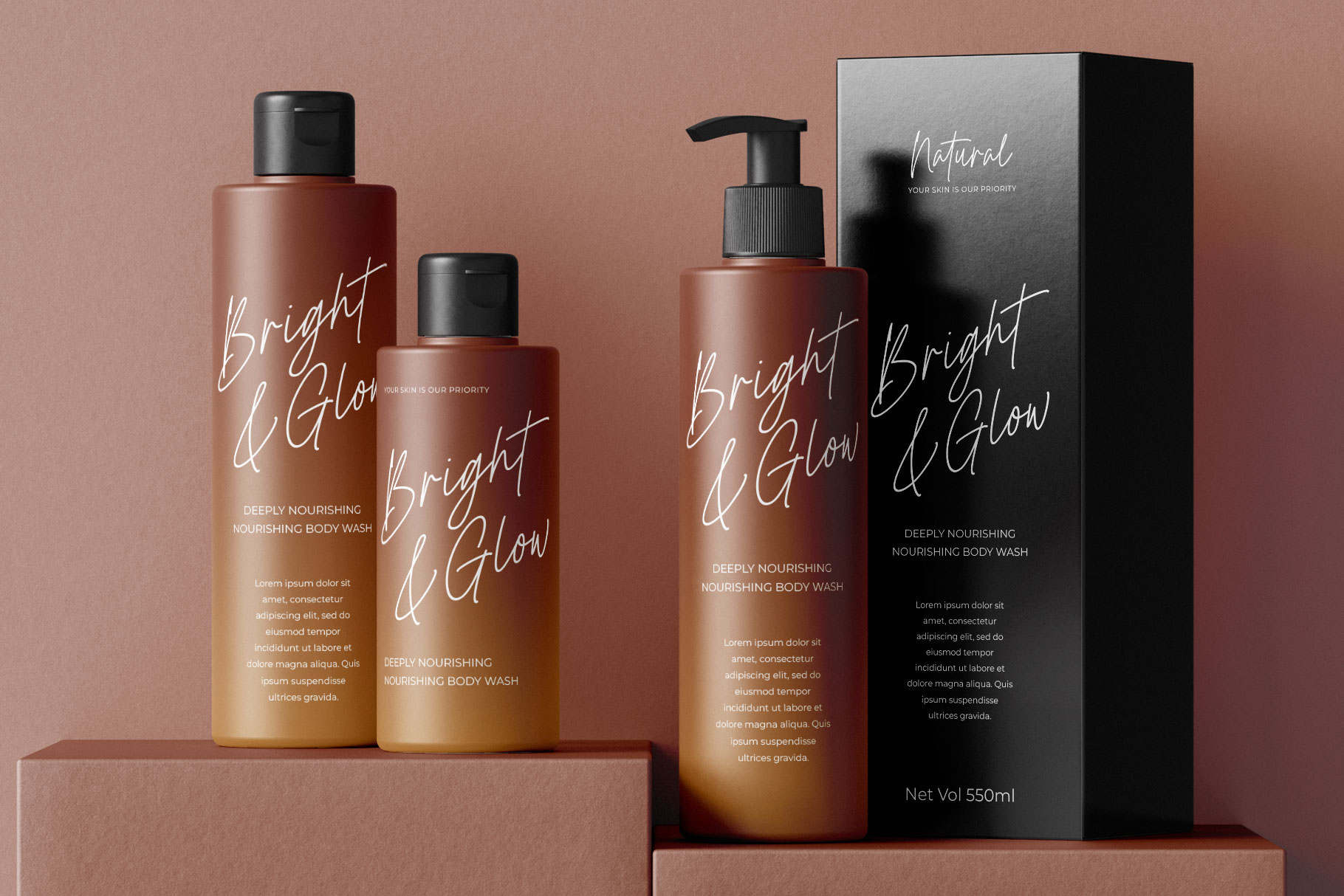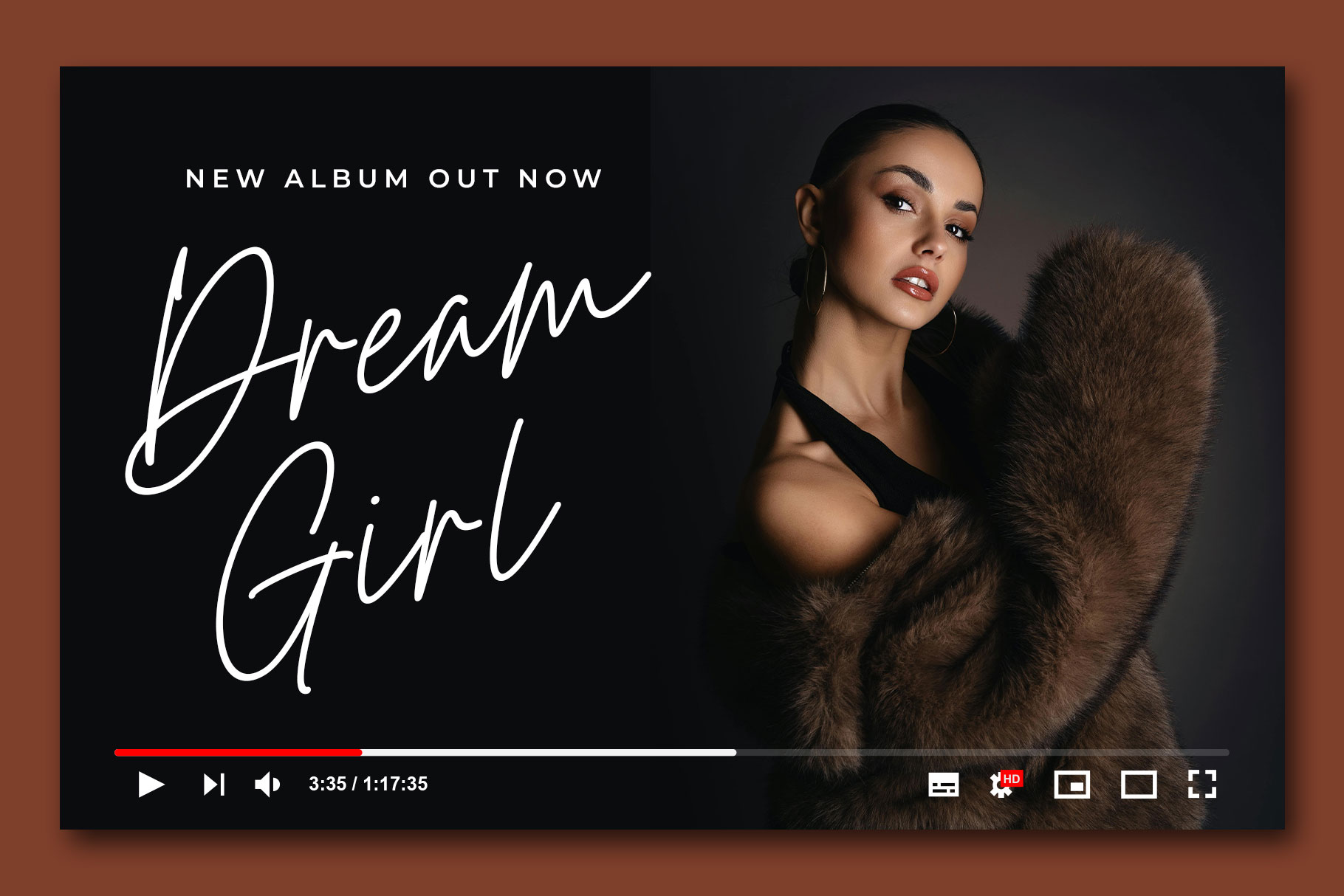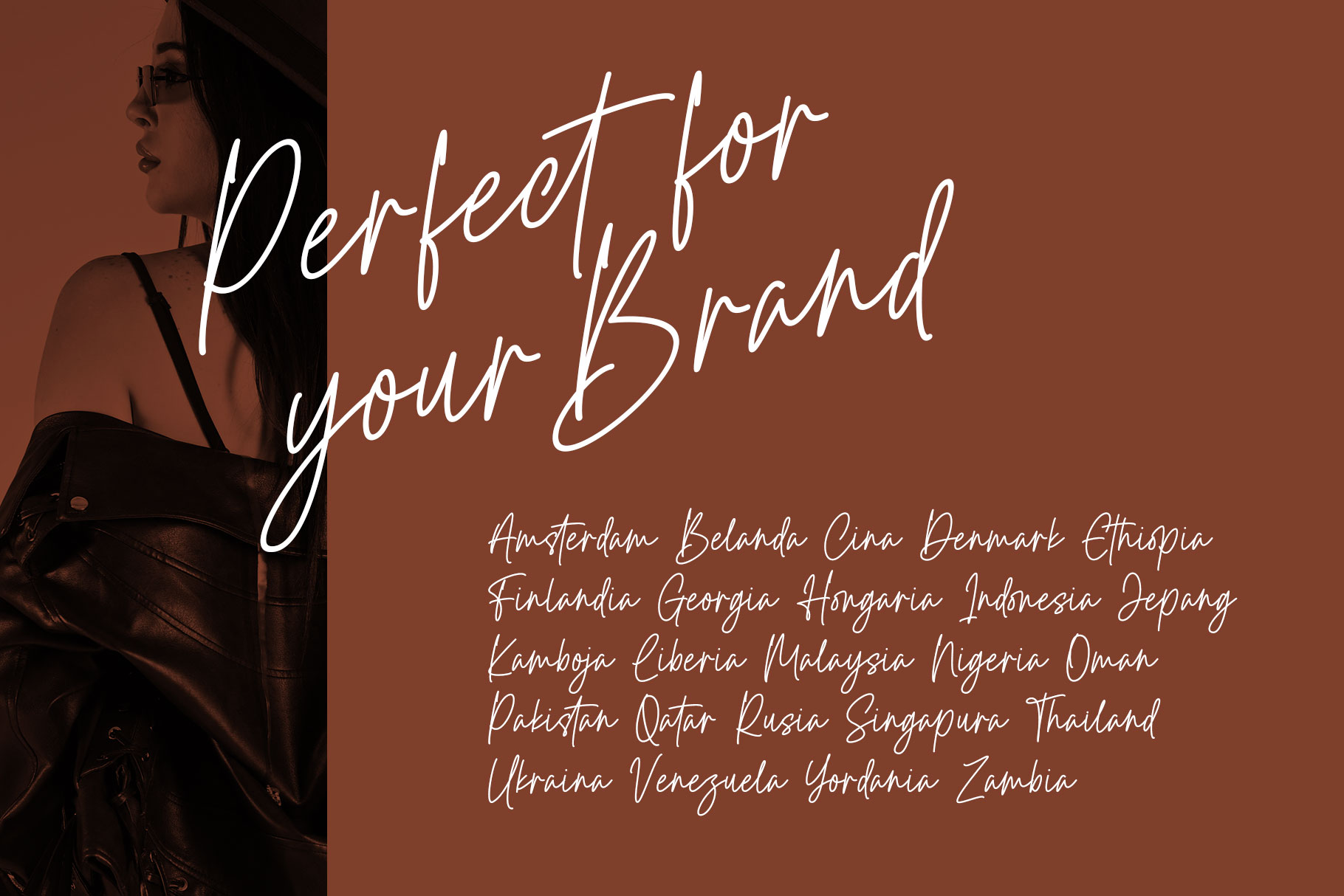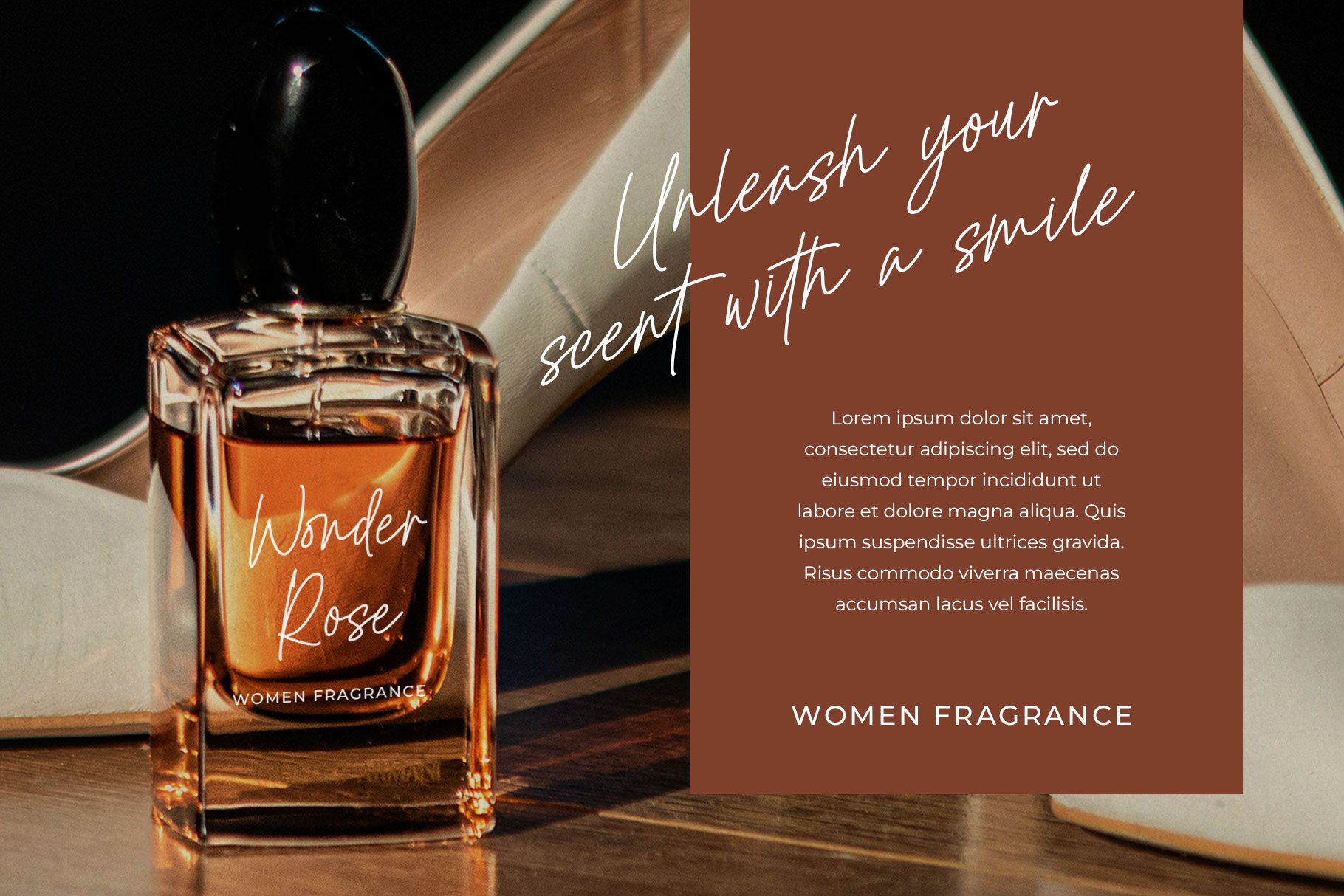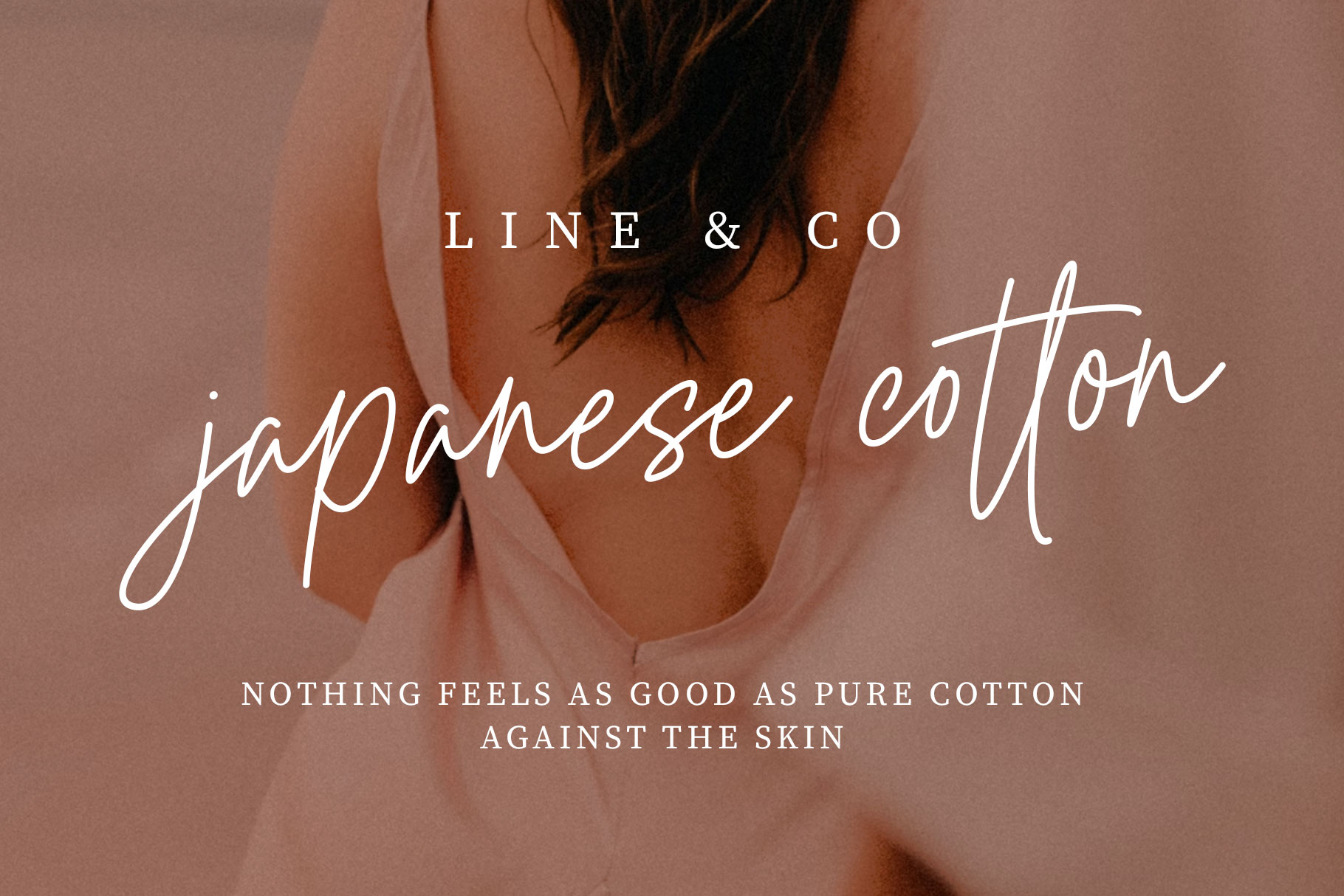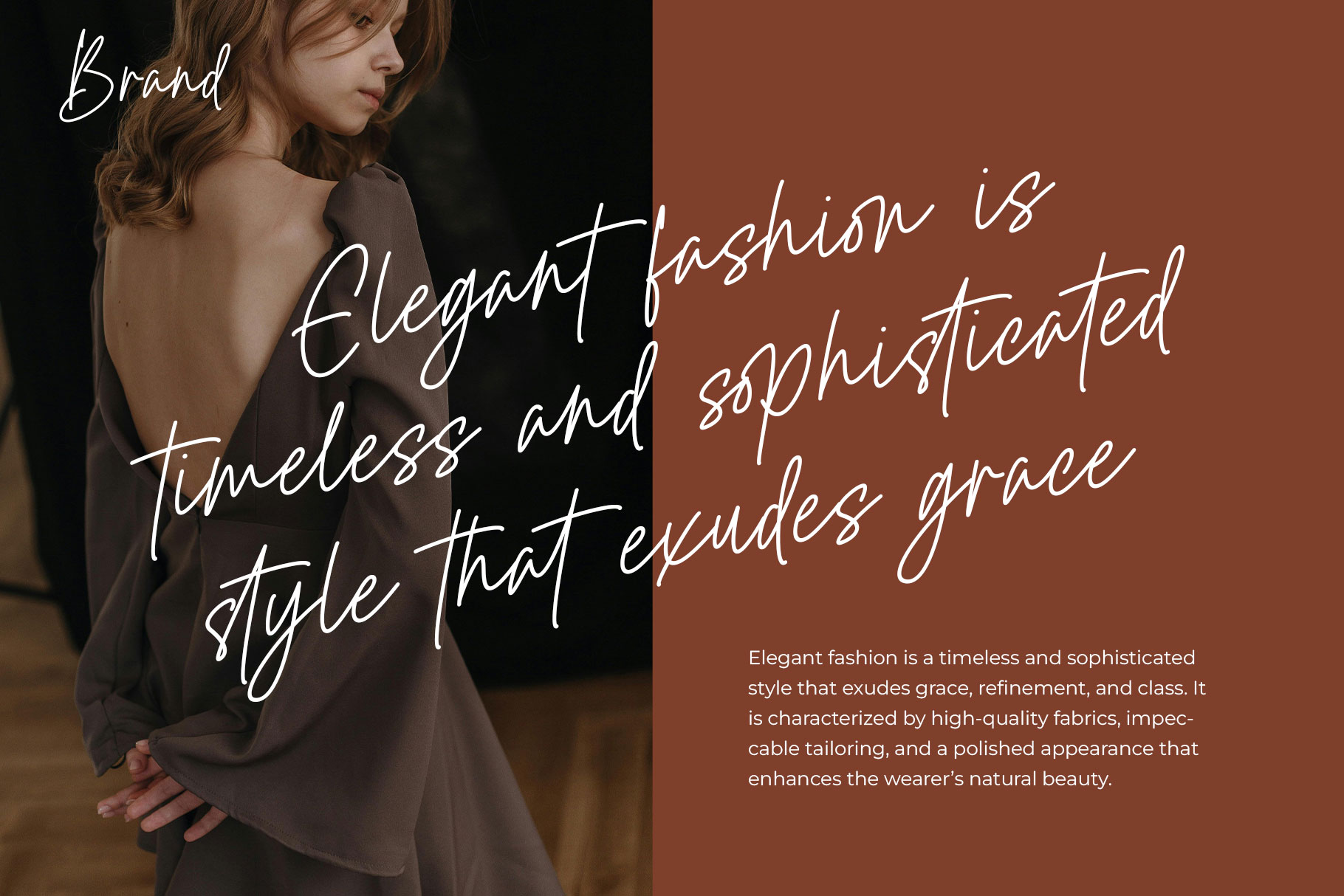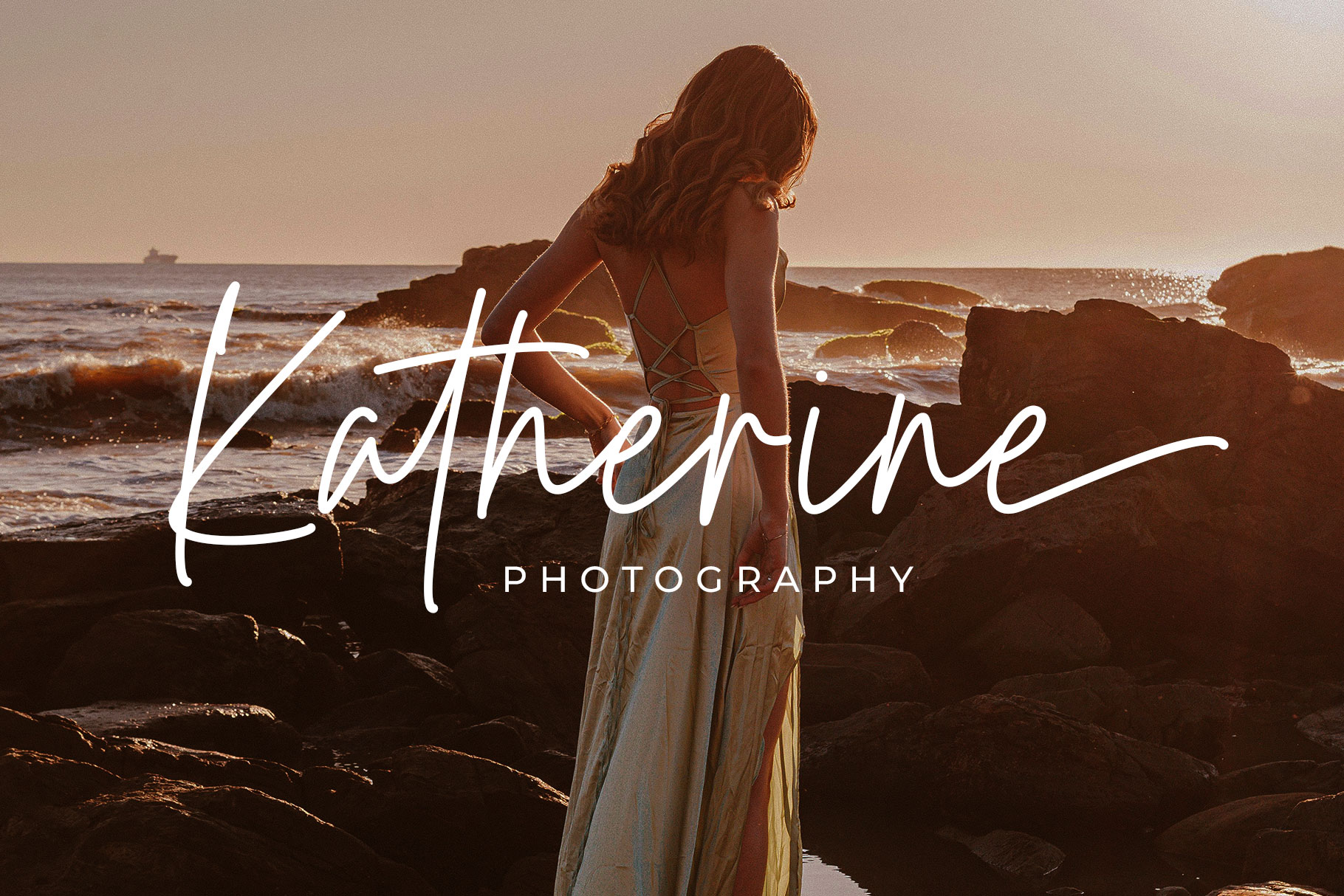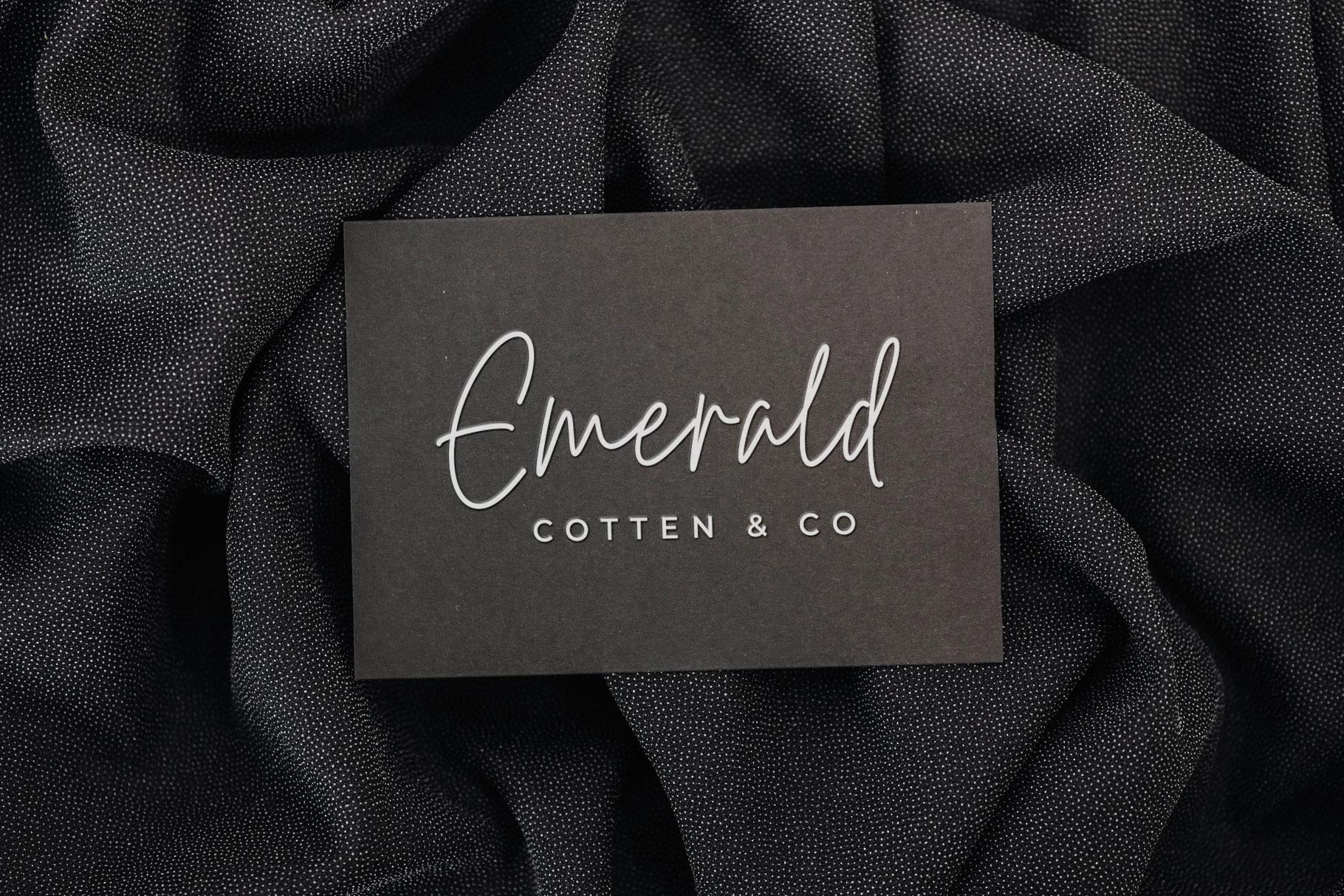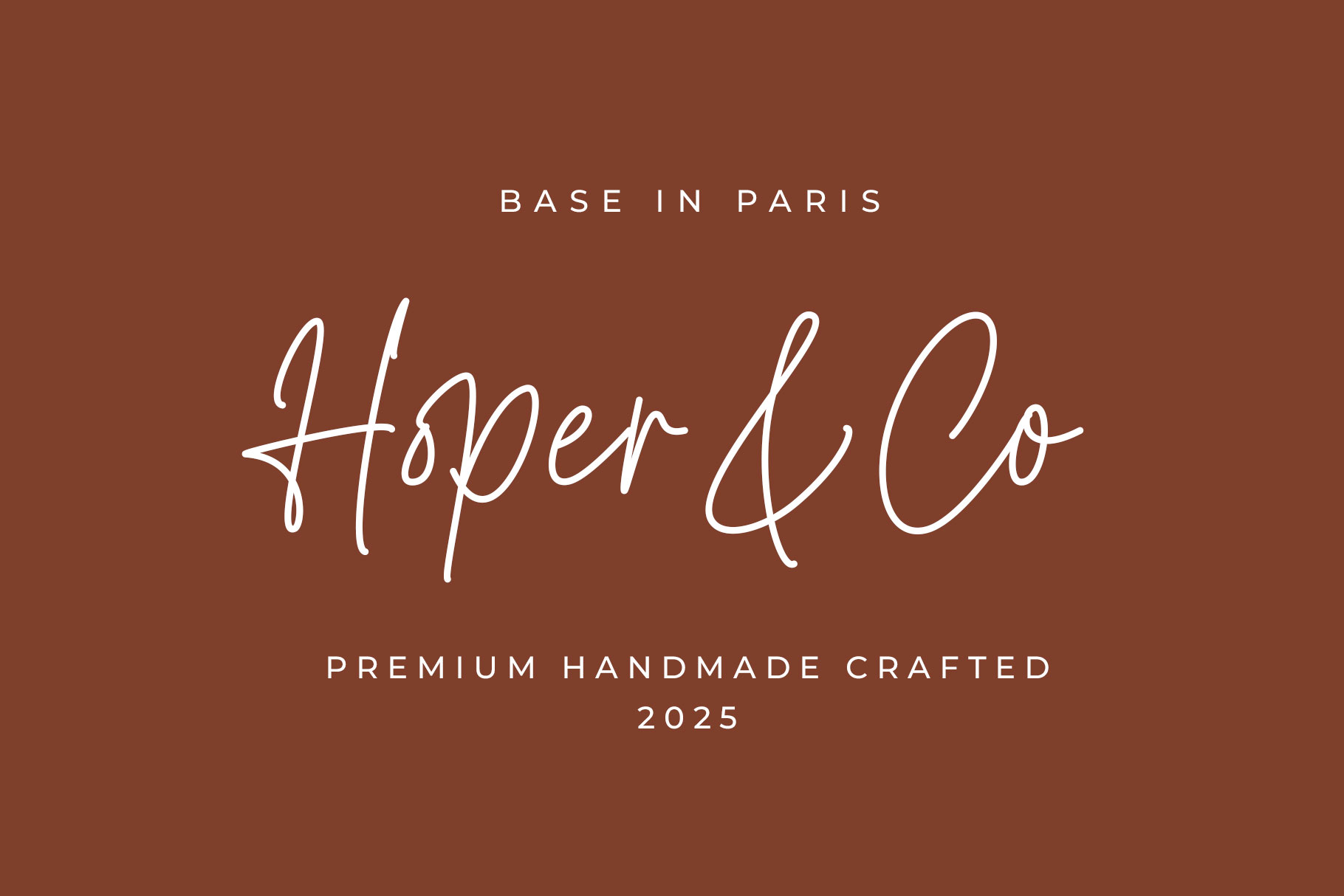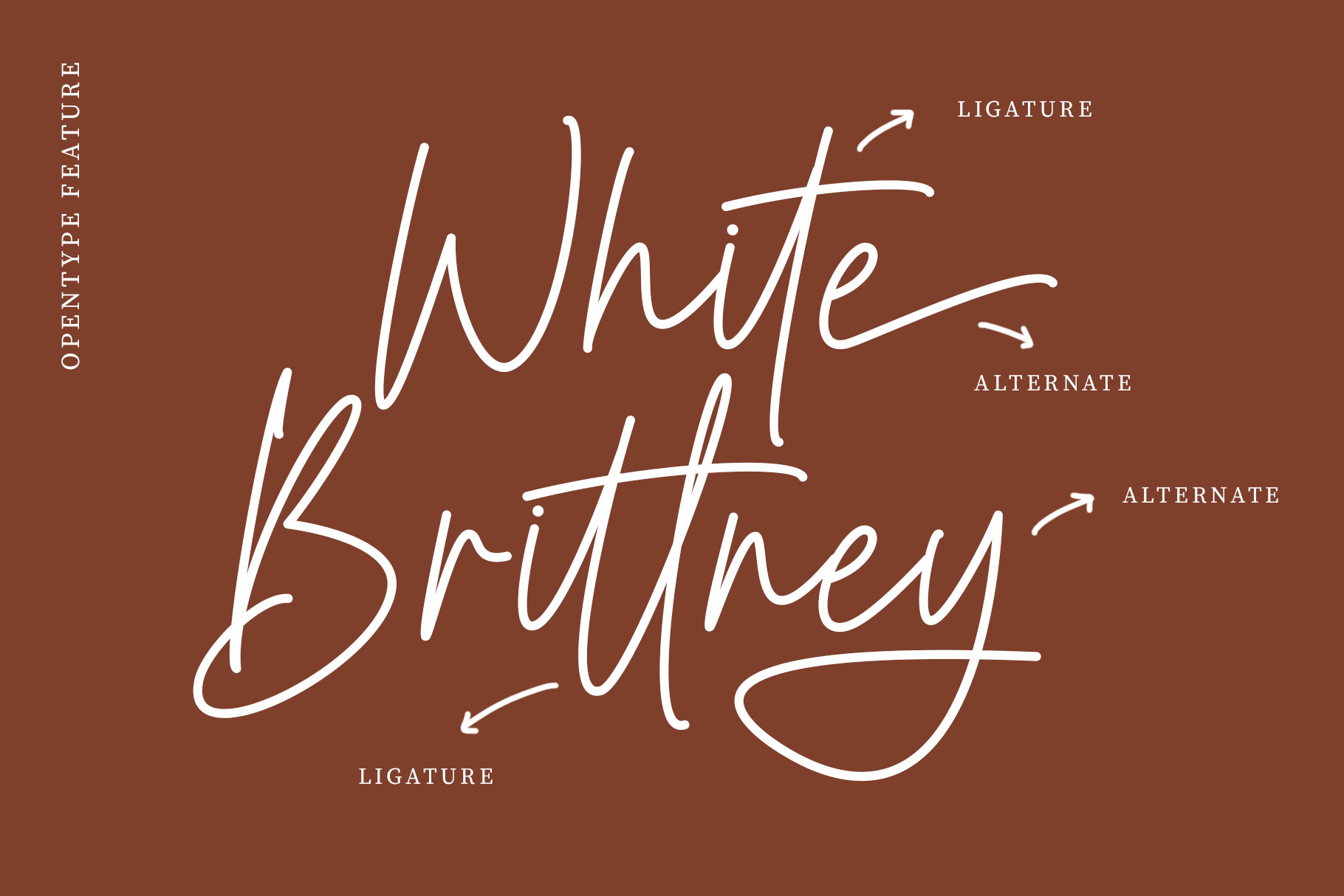
Ballentia Signature Luxury Font
Ballentia a signature luxury font is a sophisticated and elegant typeface that embodies exclusivity, refinement, and high-end aesthetics. These fonts often mimic the fluidity of a handwritten signature, exuding a sense of personal touch and prestige. Ballentia is a perfectly choice for any creative endeavor, creating, modern, chic, lifestyle design such as logotype, title, cover, branding, invitations, wedding designs, display and magazine, social media posts, advertisements, printed quotes, product packaging, corporate brand, product designs, labels, photography, watermarks, special events and any other project with modern touch.